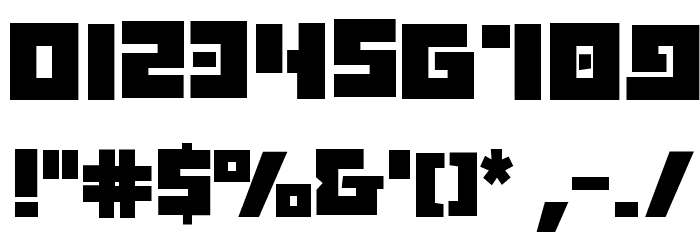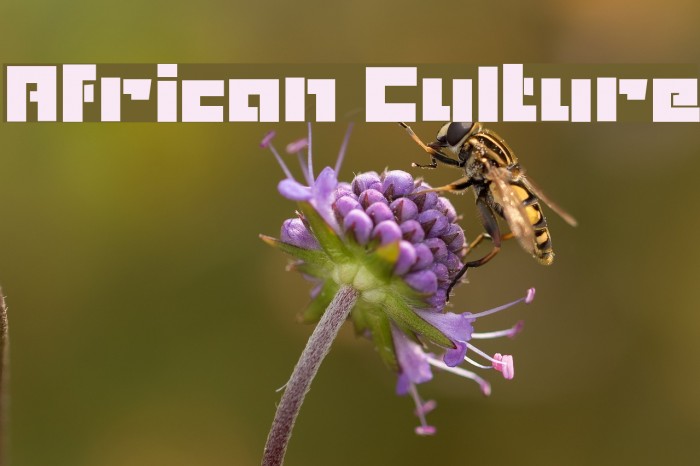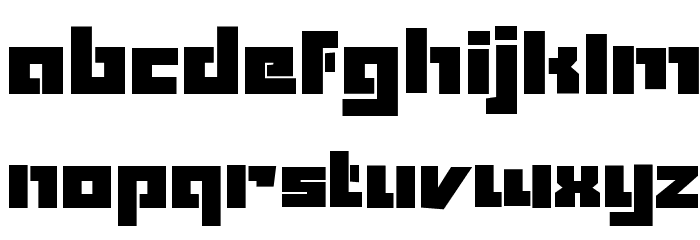
African Culture Font
African Culture Description
This font features a bold and geometric design, characterized by its strong, angular lines and blocky appearance. The uppercase and lowercase letters maintain a consistent width, creating a uniform and cohesive look. The numerals and special characters follow the same geometric style, ensuring visual harmony across all characters. The font's design is reminiscent of traditional African patterns, with a modern twist that makes it suitable for contemporary use. Its boldness and unique style make it stand out, perfect for projects that require a strong visual impact.
A bold, geometric font with angular lines and a modern twist on traditional patterns from Uncategorized fonts.